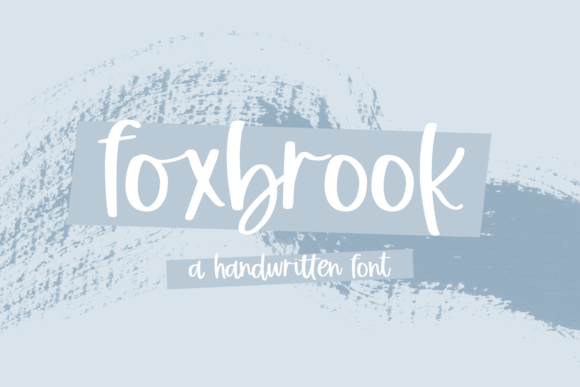
Unleash your artistic vision with Foxbrook Font, a captivating and stylish handwritten font. Immerse yourself in the realm of creativity as you explore the boundless possibilities of this enchanting font. From crafting heartfelt messages for your loved ones to designing captivating logos that leave a lasting impression, Foxbrook Font is your perfect companion.
Transport yourself to a world of elegance and grace as you effortlessly create breathtaking digital designs. With its meticulously crafted curves and delicate strokes, Foxbrook Font will add a touch of sophistication and charm to your digital creations. Let your imagination soar as you design visually stunning quote graphics that captivate your audience, leaving them in awe of your artistic prowess.
Embark on a creative journey as you utilize Foxbrook Font to design stylish Cricut or Silhouette projects that showcase your unique personality. Let the font's captivating curves and flowing lines guide you as you create beautiful farmhouse decor and crafts that exude rustic charm and warmth. Adorn your home with personalized signs, wall art, and other decorative elements that reflect your impeccable taste and style.
Elevate your social media presence with captivating graphics that demand attention. Harness the power of Foxbrook Font to craft captivating quotes and messages that resonate with your audience, leaving them inspired and eager for more. Let your brand shine through as you design visually stunning logos and website accents that exude professionalism and creativity. Establish a strong online presence that reflects the essence of your brand and attracts potential customers.